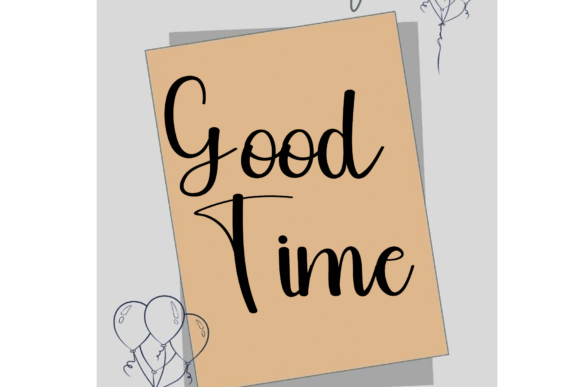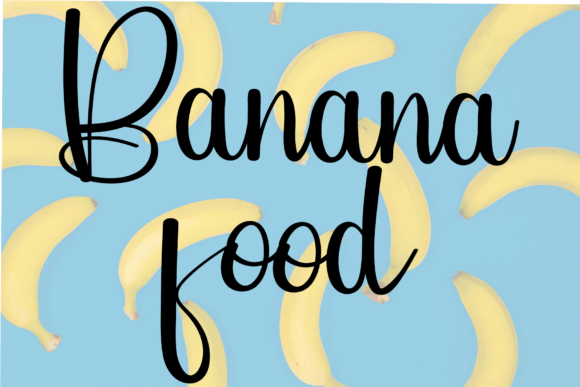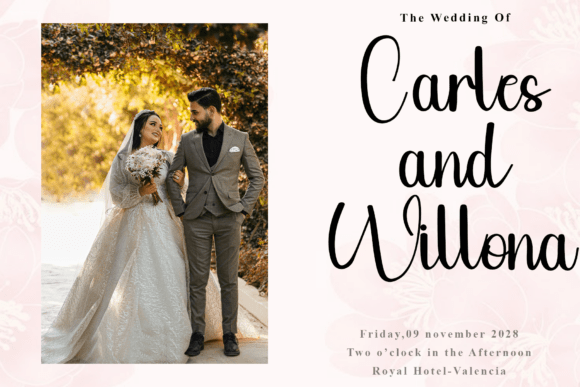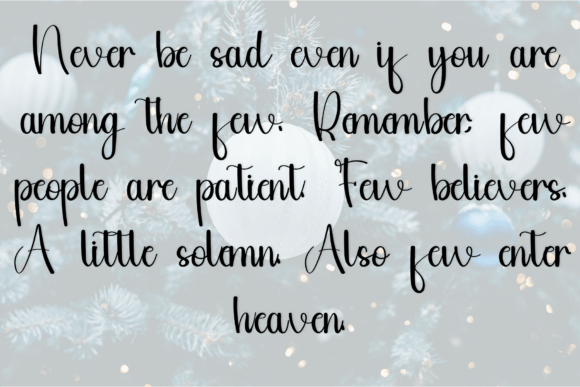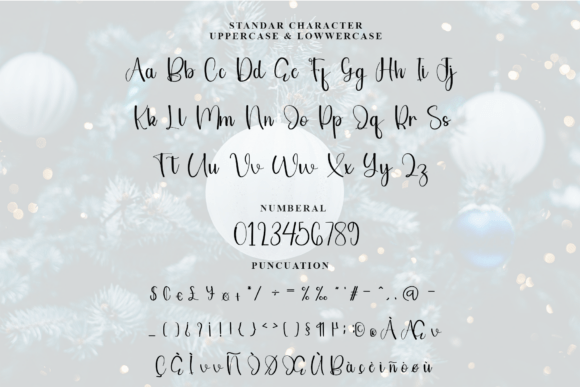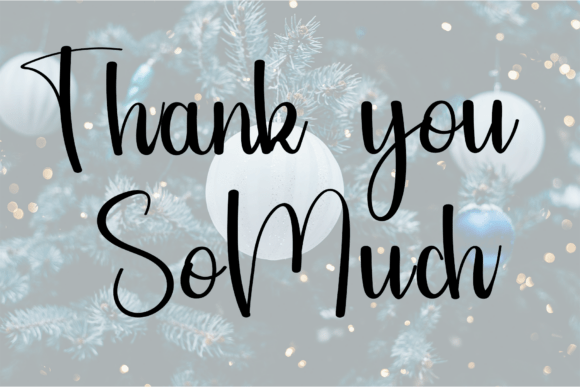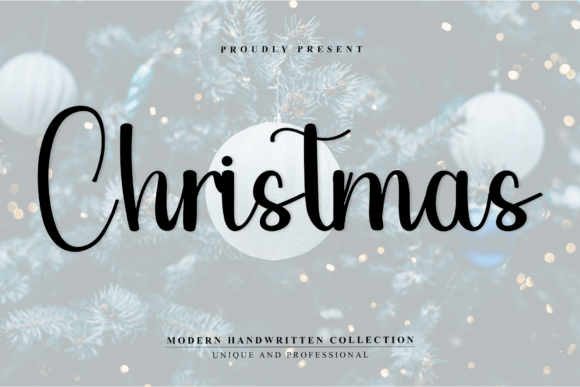
Introducing Christmas Font: The Perfect Blend of Warmth and Personality
Are you looking for a font that can add a personal touch to your designs? Look no further than Christmas Font, a casual handwritten font that radiates warmth and personality. With its smooth strokes, natural curves, and easy-flowing letterforms, this font captures the charm of authentic handwriting with a modern, approachable feel.
What Makes Christmas Font Special?
Christmas Font is designed to bring a sense of warmth and friendliness to any design. Its smooth strokes and natural curves give it a fluid, effortless look that’s perfect for a variety of applications, from quotes and invitations to branding and social media posts. Whether you’re a designer, crafter, or simply someone who loves to add a personal touch to your creations, Christmas Font is the perfect choice.
Key Features of Christmas Font
- Smooth Strokes: Christmas Font features smooth, flowing strokes that give it a natural, handwritten look.
- Natural Curves: The font’s natural curves and rounded edges add to its friendly, approachable feel.
- Easy-Flowing Letterforms: The letterforms in Christmas Font are designed to flow easily into each other, creating a sense of movement and fluidity.
- Modern and Approachable: Despite its handwritten look, Christmas Font has a modern, approachable feel that’s perfect for a wide range of applications.
Uses for Christmas Font
Christmas Font is incredibly versatile, making it perfect for a variety of uses, including:
- Quotes: Add a personal touch to your inspirational quotes and sayings with Christmas Font.
- Invitations: Use Christmas Font to create warm and inviting invitations for weddings, parties, and other special events.
- Branding: Add a personal touch to your brand with Christmas Font, perfect for logos, packaging, and marketing materials.
- Social Media Posts: Use Christmas Font to add a friendly, approachable touch to your social media posts and stories.
Benefits of Using Christmas Font
So why choose Christmas Font for your designs? Here are just a few benefits:
- Readability: Despite its handwritten look, Christmas Font is highly readable, making it perfect for body text and longer blocks of text.
- Charm: Christmas Font has a certain charm and character that’s hard to find in more traditional fonts.
- Versatility: Christmas Font is incredibly versatile, making it perfect for a wide range of applications and designs.
Tips for Using Christmas Font
Here are a few tips for getting the most out of Christmas Font:
- Pair with Other Fonts: Christmas Font pairs well with a variety of other fonts, so don’t be afraid to experiment with different combinations.
- Use for Headlines and Titles: Christmas Font is perfect for headlines and titles, where its charm and character can really shine.
- Add Texture and Patterns: Consider adding texture and patterns to your designs to give them an extra layer of depth and interest.